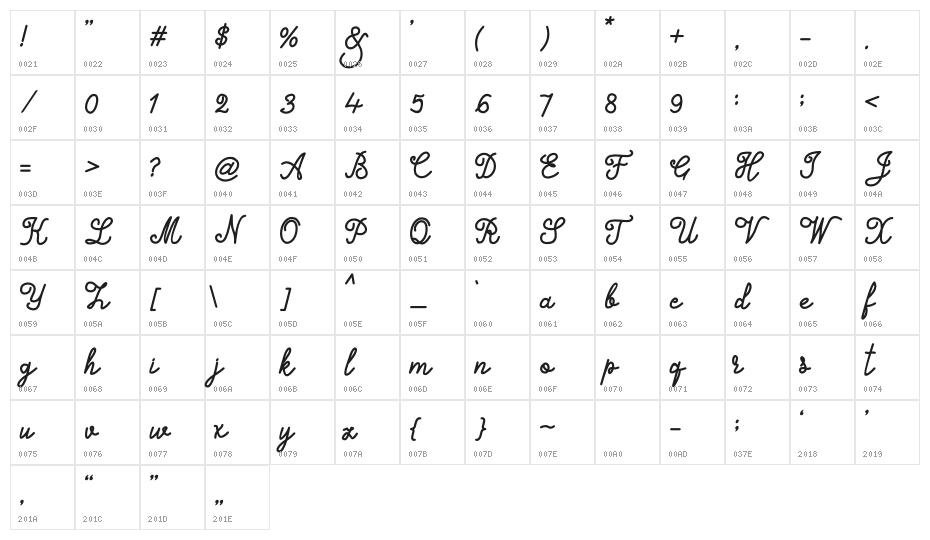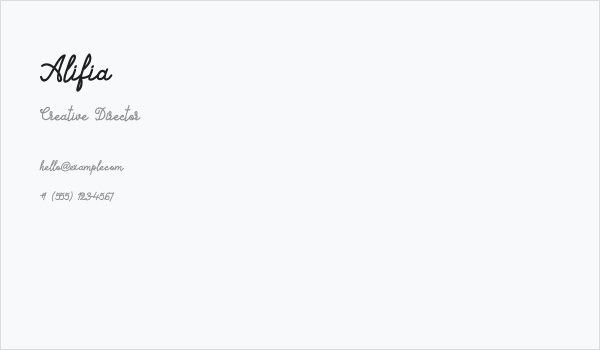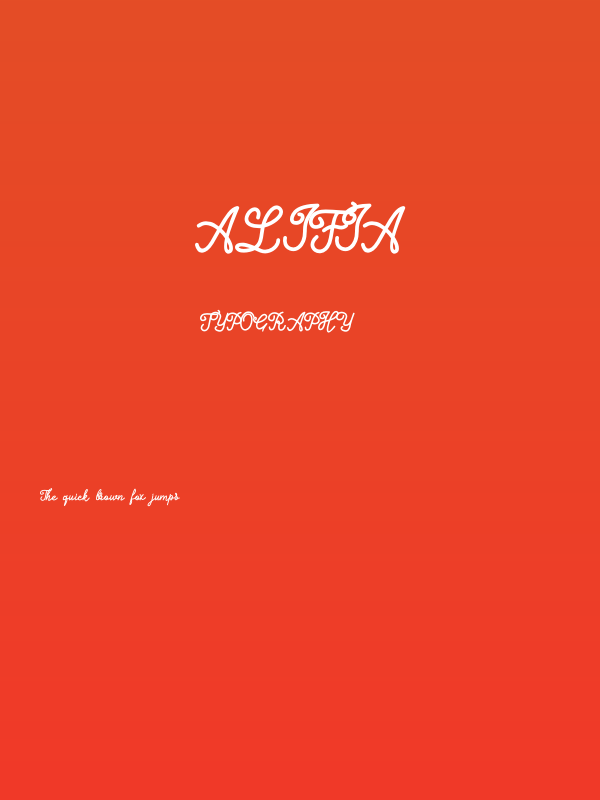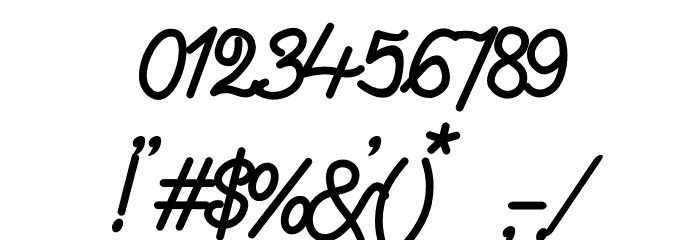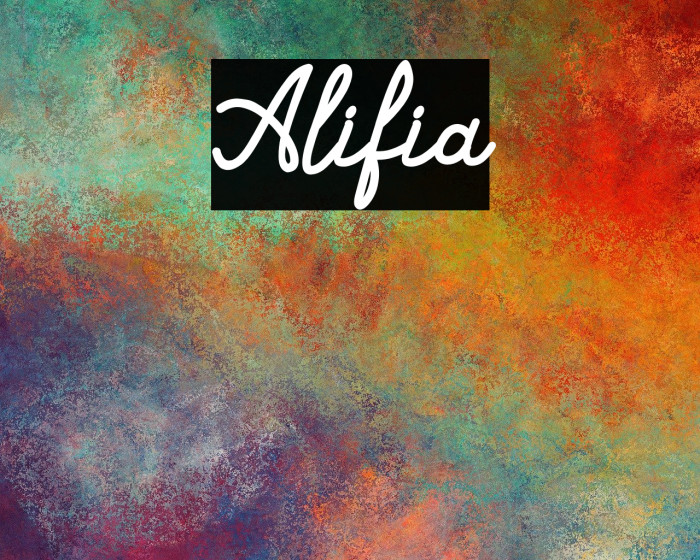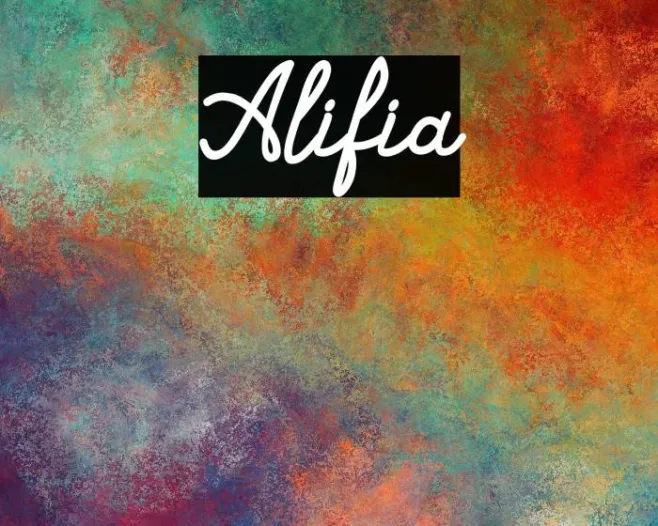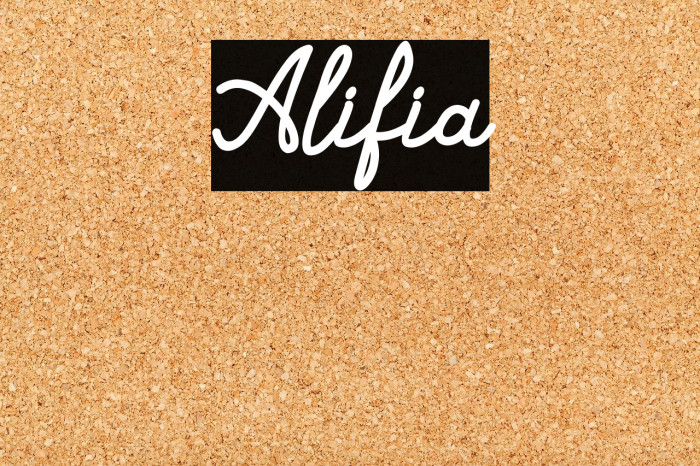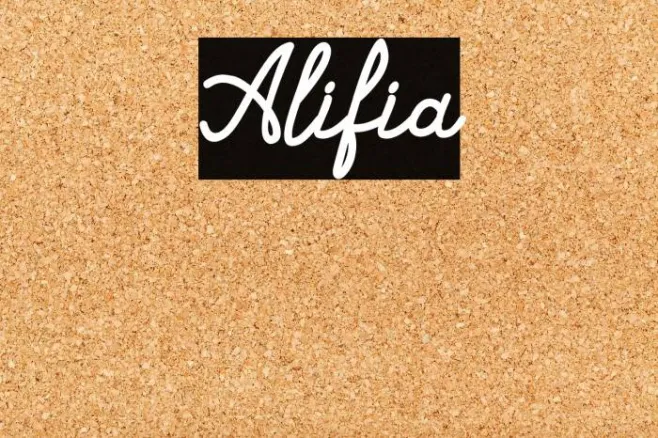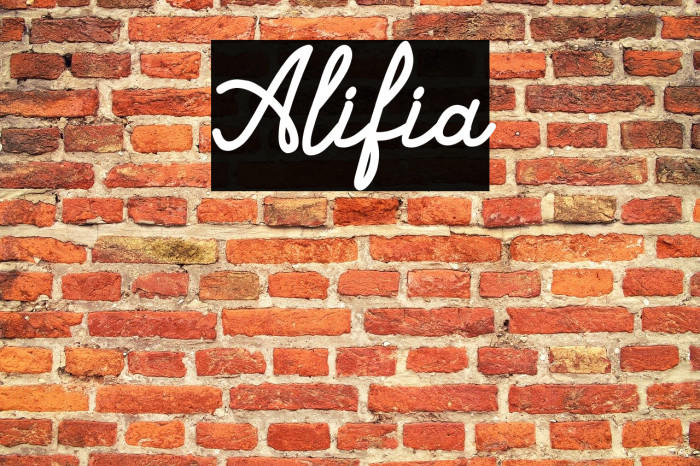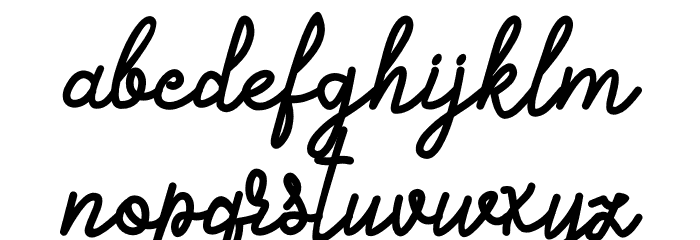
Alifia Font
Alifia Description
This font features a flowing, cursive style with elegant loops and swashes, giving it a handwritten appearance. The uppercase letters are bold and decorative, with a consistent slant that adds a sense of movement. The lowercase letters maintain a similar style, with smooth connections between characters, enhancing the script-like quality. Numbers and special characters are designed to match the overall aesthetic, ensuring a cohesive look. The font's playful yet sophisticated design makes it suitable for creative projects.